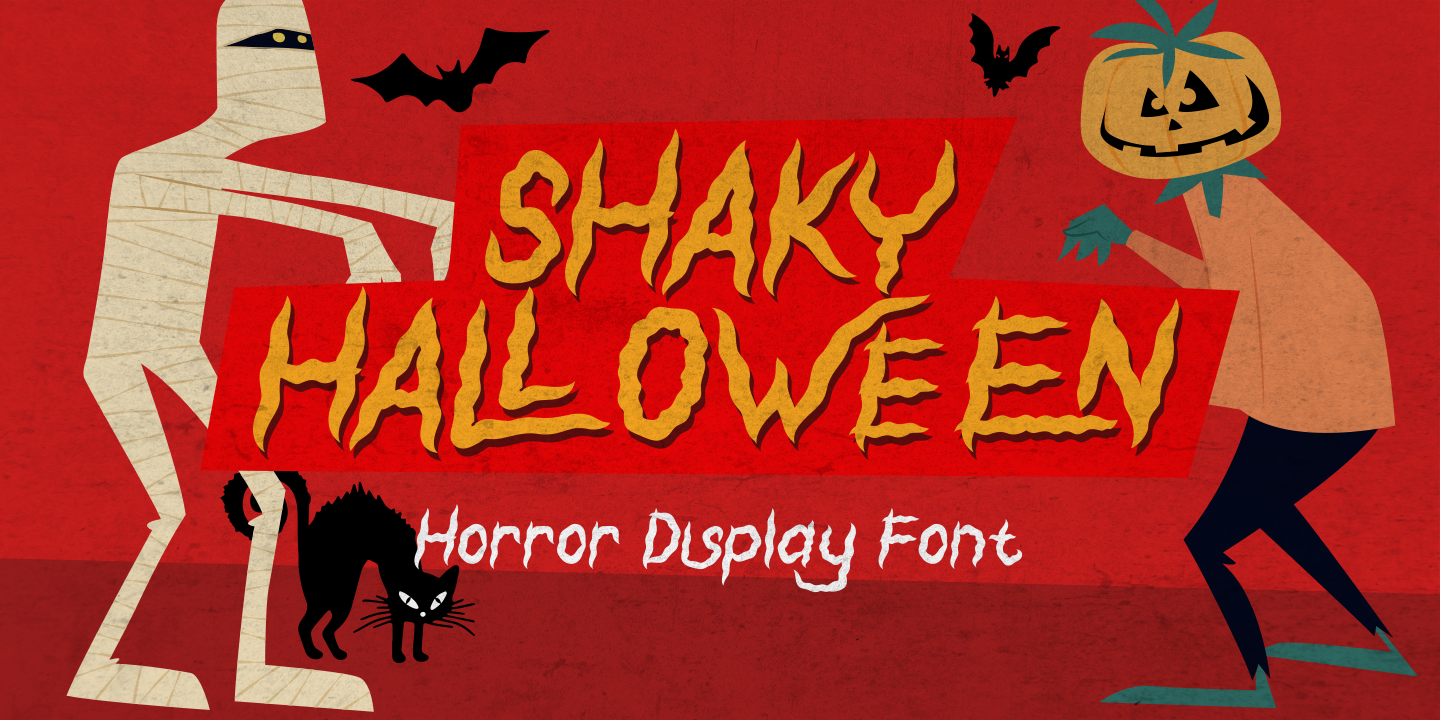
The Shaky Halloween Font Free Download is a delightfully spooky and whimsical typeface, making it an excellent choice for designs that aim to capture the fun, eerie, and slightly quirky spirit of Halloween. This festive font is perfectly suited for Halloween party invitations, costume contest flyers, trick-or-treat bag designs, spooky social media graphics, haunted house promotions, and children's Halloween book covers. Imagine it adding a wobbly, eerie charm to a "Haunted Carnival" poster, providing a playful yet chilling feel for a horror-themed movie night, or giving a uniquely unsettling vibe to a seasonal bakery's specials board. Its distorted forms and handcrafted irregularities ensure your message is delivered with a captivating blend of fright and fun.
What makes Shaky Halloween Font truly exciting is its ability to instantly infuse designs with a sense of playful menace and ghostly movement. It's not just a themed font; it embodies a raw, unsettling energy and a distinct personality that makes it incredibly compelling. The intentional "shaky" lines and eerie imperfections give it an authentic, hand-drawn quality, as if written by a spectral hand. Designers will appreciate how it immediately adds an eerie, yet approachable, quality to any project, making it ideal for designs that need to evoke the spirit of Halloween with a unique and memorable visual twist.
The Shaky Halloween Font family typically focuses on its singular, impactful style, as its strength lies in its inherent "shaky" and thematic appearance. While you might primarily find a Regular option, its power comes from its unique visual effect rather than a broad range of weights. Some versions might offer unique ligatures or alternative characters that further enhance its eerie, handcrafted feel, allowing for variations in its whimsical yet unsettling appearance. These focused design choices ensure that the Shaky Halloween Font Free Download provides ample creative opportunities to craft truly unique, festive, and visually striking Halloween-themed designs.